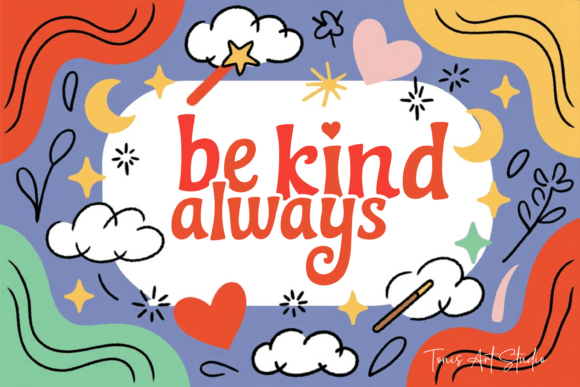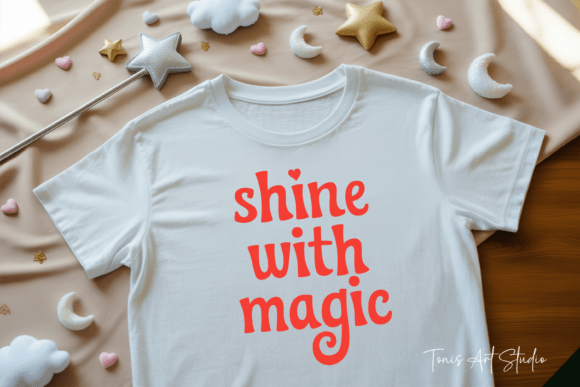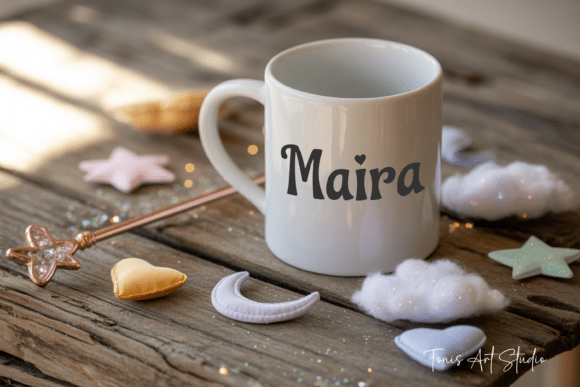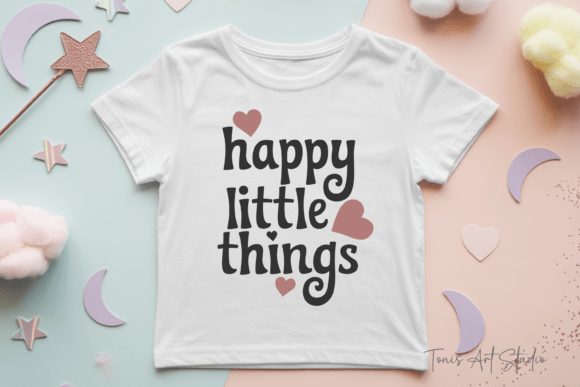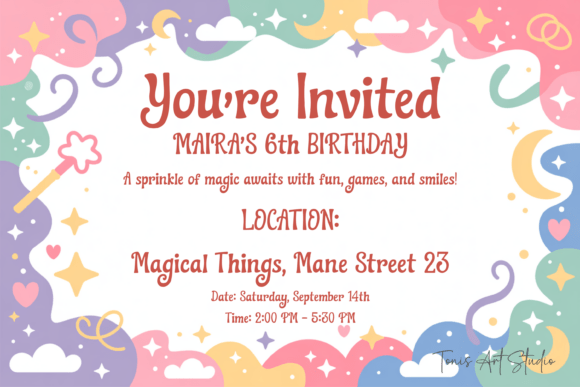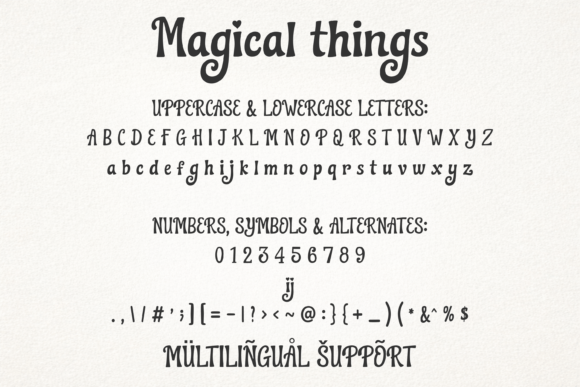
Introduction to Magical Things Font
Have you ever stumbled upon a design element that makes you feel like a kid again? For me, that moment was discovering the Magical Things Font. Its whimsical curves and playful letterforms instantly transported me to a world of imagination and wonder. As a designer, I’m always on the lookout for high-quality resources that can bring a touch of magic to my creative projects. And that’s exactly what the Magical Things Font delivers – a delightful combination of charm, happiness, and expressiveness that’s perfect for kids’ designs, magical quotes, and more.
With its friendly personality and dreamy fairytale feel, the Magical Things Font is a valuable resource for designers who want to add a touch of whimsy to their work. Whether you’re creating a kids’ birthday shirt, a magical party invitation, or a nursery decor, this font is sure to bring a smile to your face and a sparkle to your design.
Key Features of Magical Things Font
- Unique, whimsical design perfect for creative projects and imaginative stories.
- Perfect for use in children’s books, greeting cards, and other design resources that require a touch of magic.
Honest Review: Magical Things Font
I recently had the chance to use the Magical Things Font in a creative project and I was excited to see how it would perform. Overall, I was pleased with the result, but as with any design resource, there are pros and cons to consider.
- ✨ The font has a beautiful, whimsical feel that’s perfect for creative projects like children’s books or fantasy-themed designs.
- ✨ The high quality of the font ensures that it looks great on both screens and print materials.
- ⚠️ The font has a transparent background, which can make it difficult to use on dark-colored backgrounds.
- ⚠️ The font is only available in a limited number of weights and styles, which may limit its versatility.
Overall, I was impressed with the Magical Things Font’s unique design and high quality. While it has some limitations, I think it’s a great addition to any designer’s toolkit. If you’re working on a creative project that needs a touch of magic, this font is definitely worth checking out.
The Magical Things Font is a high-quality design resource perfect for adding a touch of magic to your creative project. With its unique and whimsical style, this font is ideal for designers and artists looking to add a touch of fantasy to their work.
Tips for Getting the Most Out of it
To get the most out of the Magical Things Font, try using it in combination with other design elements, such as graphics and textures. Experiment with different font sizes and colors to add depth and interest to your design.
The Magical Things Font is perfect for a variety of creative projects, including:
- Graphic design and illustration
- Children’s books and educational materials